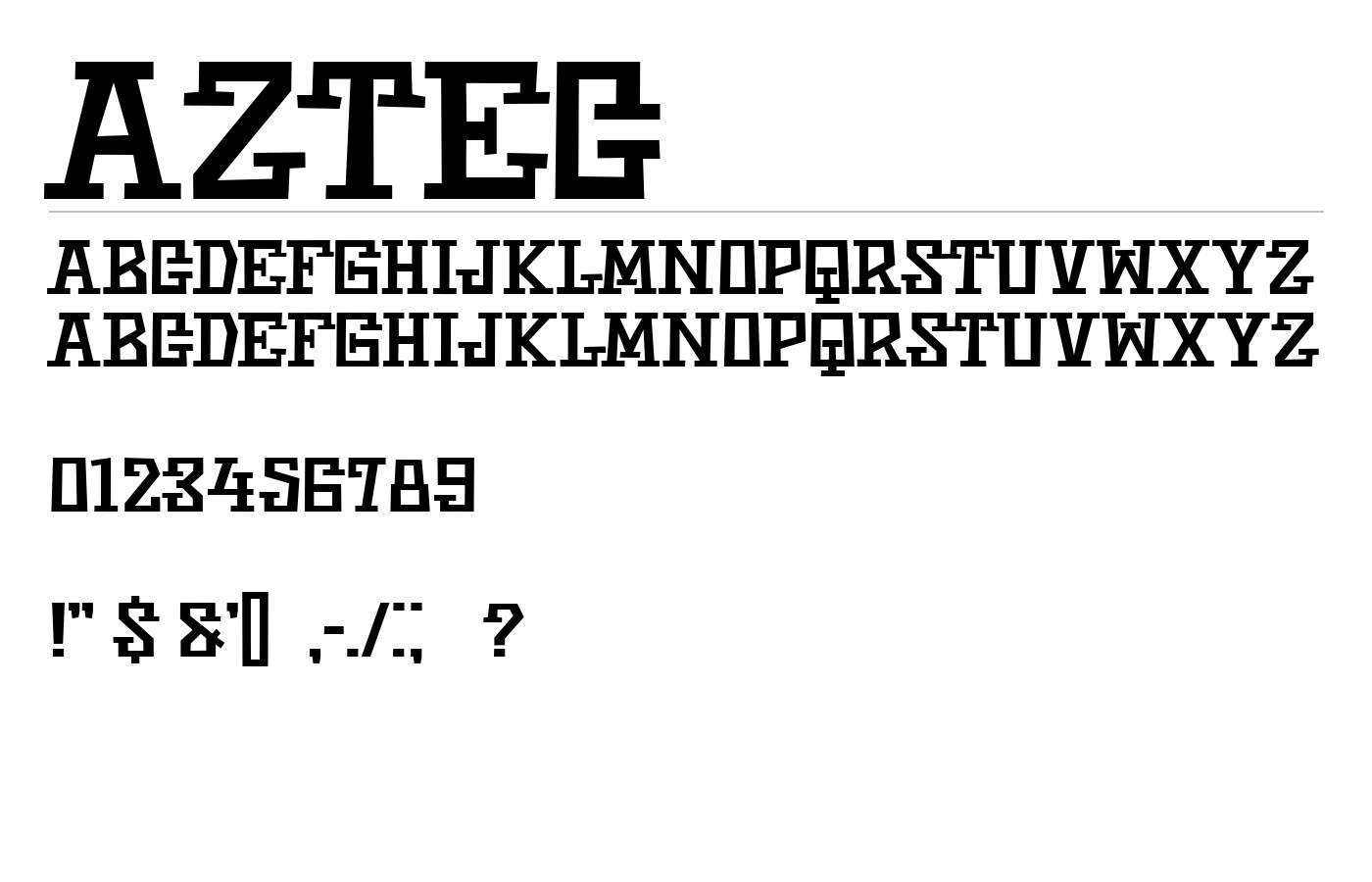
Aztec is a bold, condensed slab serif font with a strong geometric feel and sharp, blocky serifs that evoke a sturdy, vintage style. Its high contrast and unique character shapes make it ideal for eye-catching headlines, logos, and display designs that seek to convey a rugged, adventurous personality with a touch of historical flair. This font works especially well in branding and poster work where a distinctive, powerful look is desired.
Aztec Font
About Aztec Font